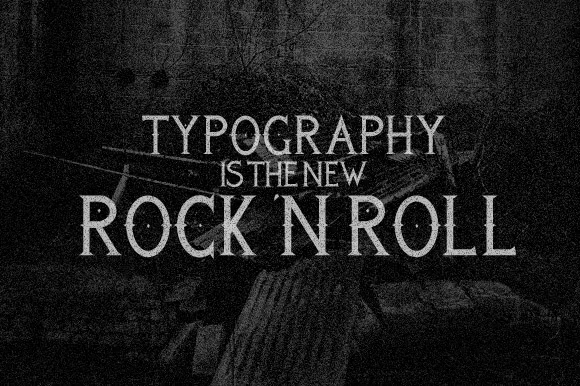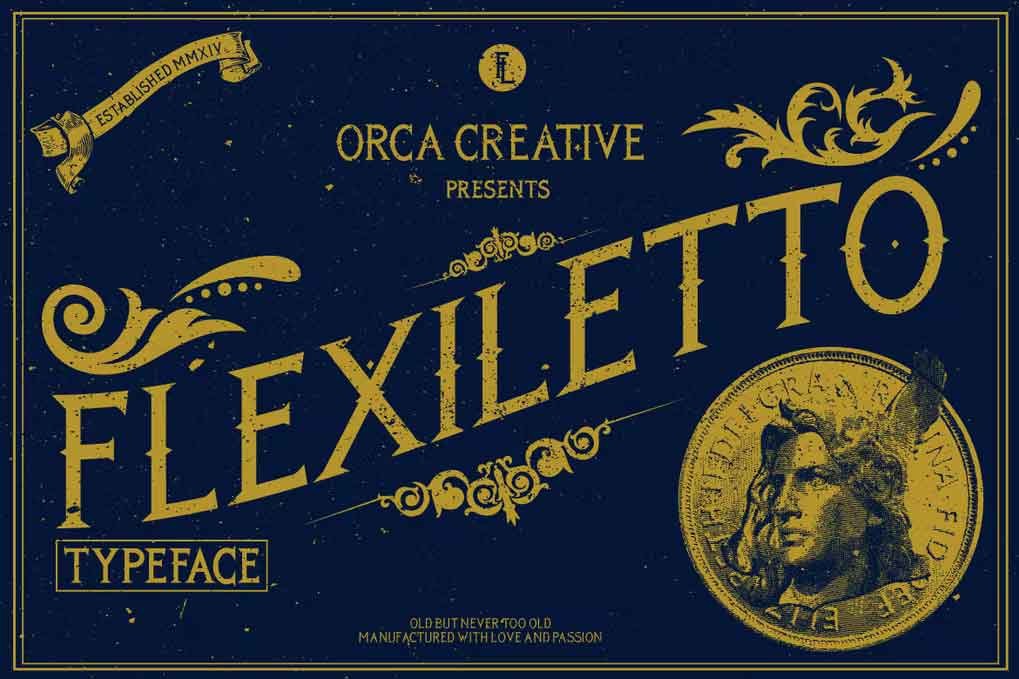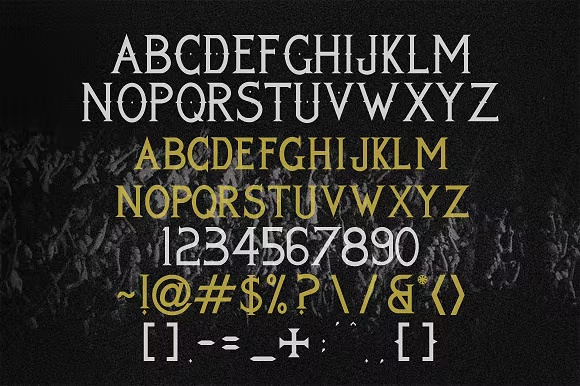
Flexiletto Font
RCA Creative presents
“FLEXILETTO” our very first typeface collection. Suitable most for any print usage with vintage and classy feel.
Where Flexiletto Font works best
Flexiletto Font gives long-form text a classic, trustworthy rhythm — ideal for magazine spreads, annual reports and book interiors.
Pair Flexiletto Font with generous letter-spacing for wordmarks in fashion, hospitality, wine and jewellery branding.
Use Flexiletto Font for slide titles in Keynote, PowerPoint or Google Slides to add authority without looking dated.
What is Flexiletto Font good for?